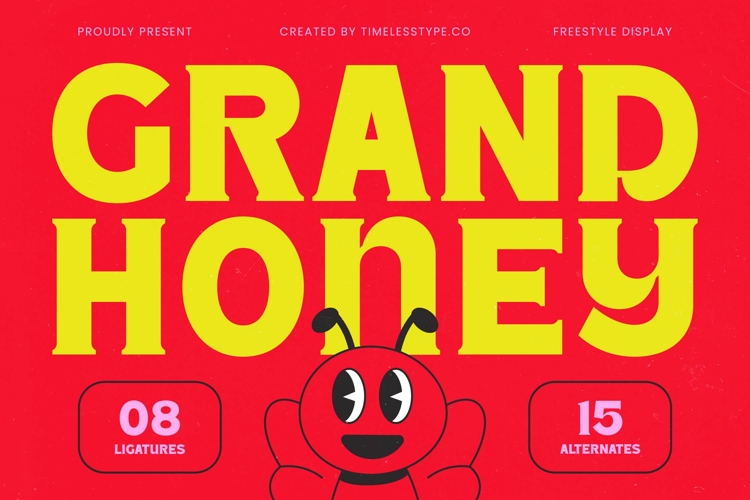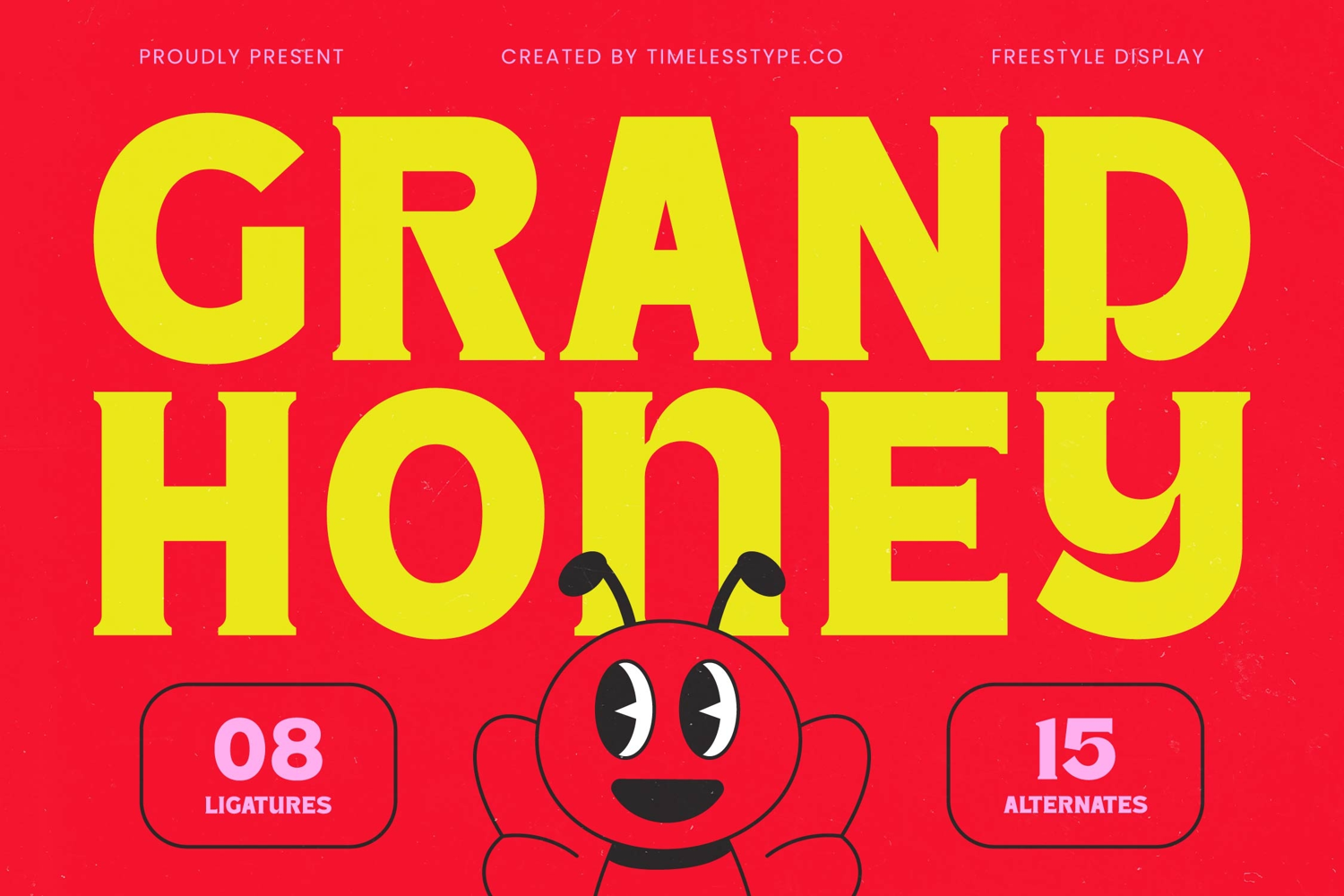
Grand Honey - Freestyle Display Font
Ignite your designs with undeniable presence. Introducing Grand Honey - Freestyle Display Font, a truly bold and impactful typeface engineered to command attention. This freestyle display font blends retro-inspired charm with a contemporary appeal, featuring robust letterforms and distinctive serifs that exude confidence and approachability. Perfect for projects demanding strong display presence and a memorable visual identity.
Unlock unparalleled creative potential with its rich feature set. Grand Honey - Freestyle Display Font comes equipped with 08 ligatures and 15 alternates, offering designers exceptional creative flexibility to craft truly unique typography. These thoughtful additions ensure your headlines, logos, and branding projects possess both personality and an artisan touch, elevating your work beyond the ordinary.